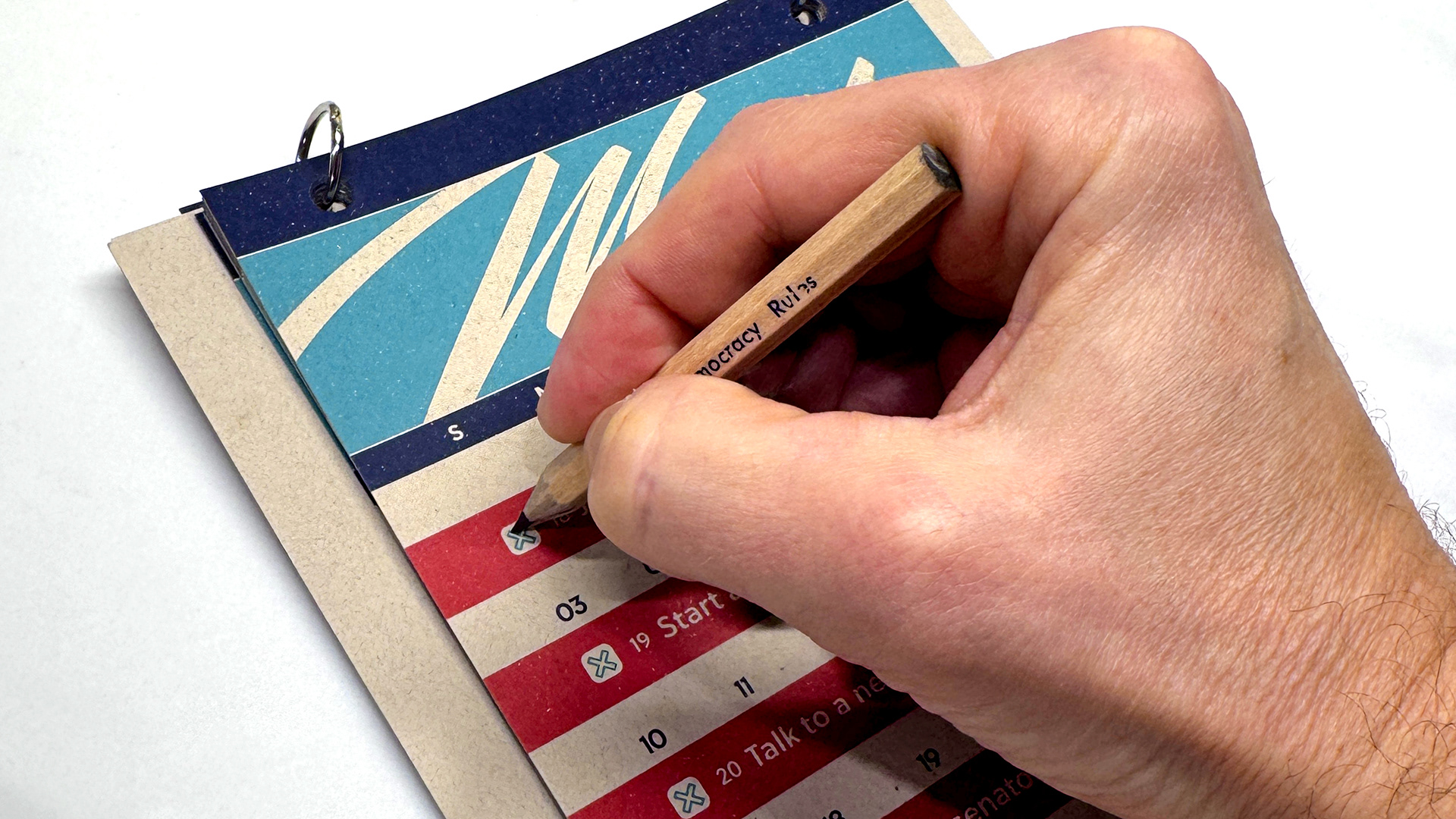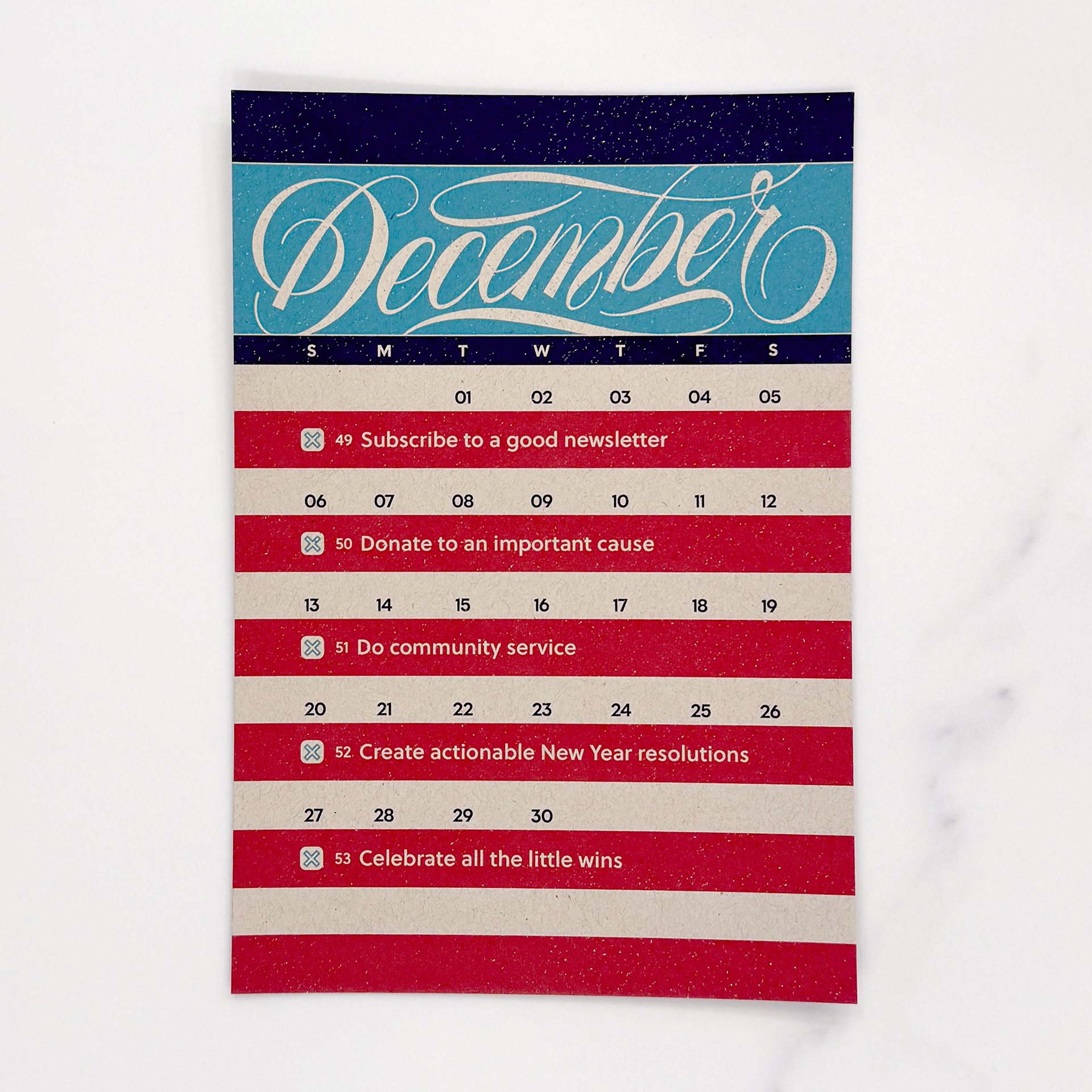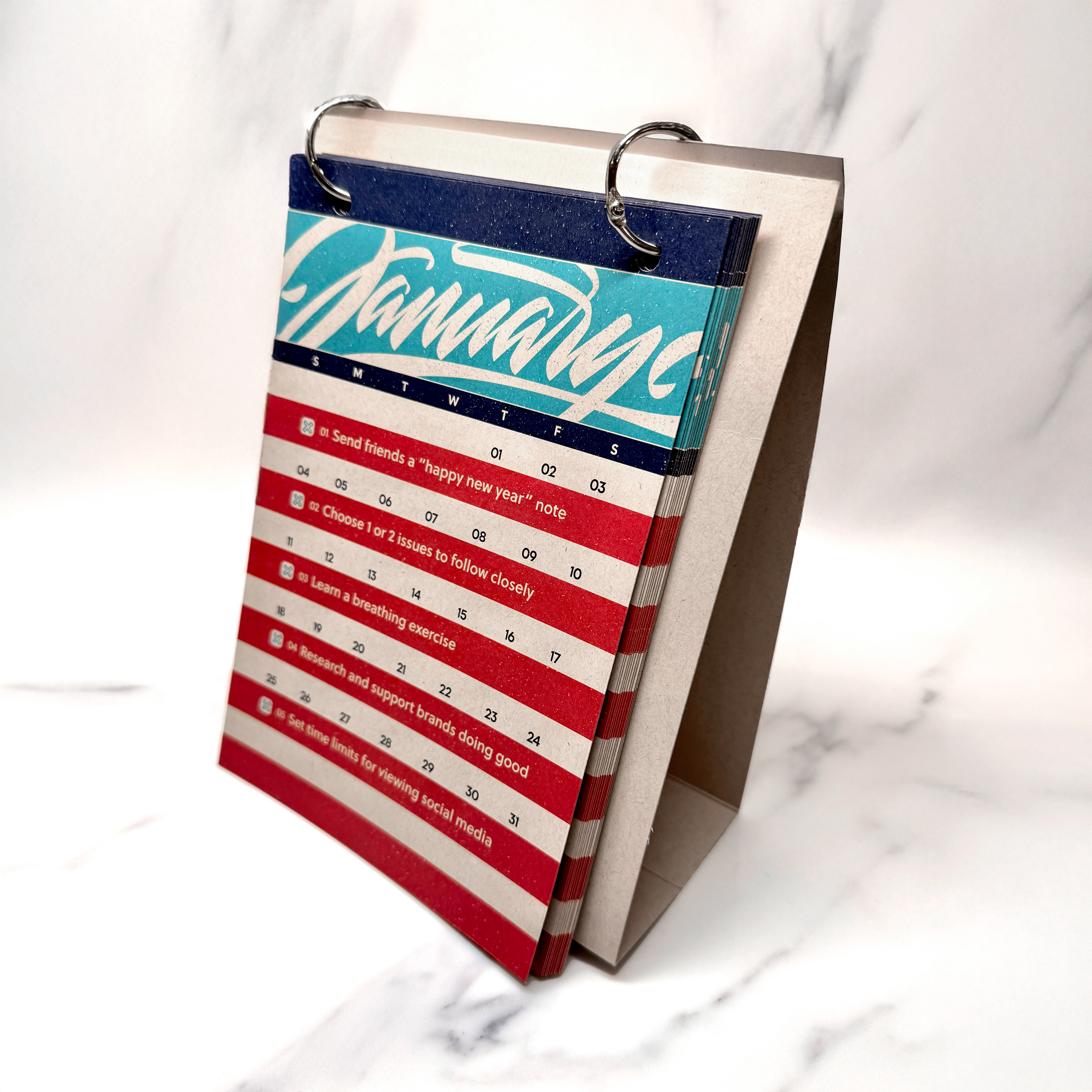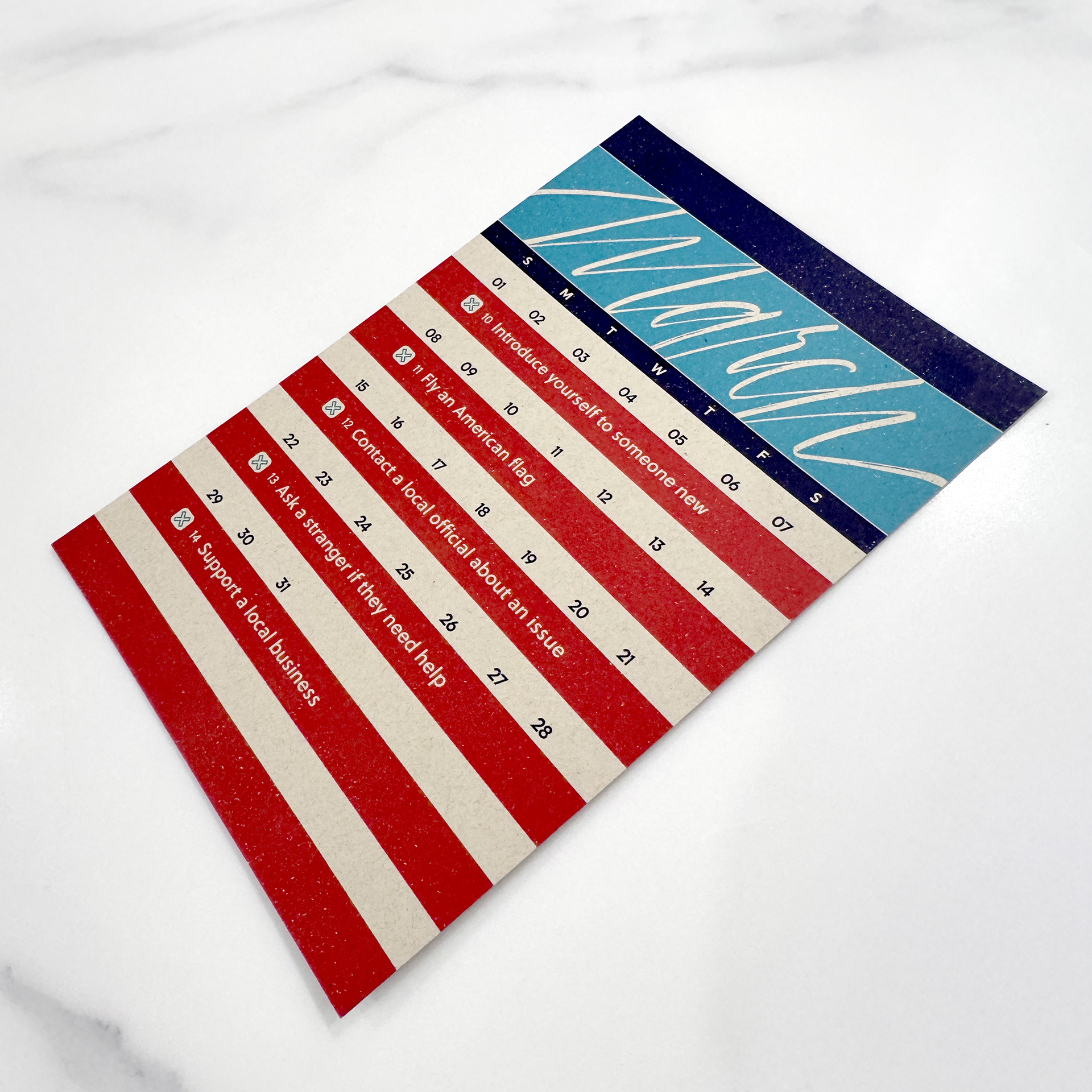
WHY THIS CALENDAR
Lately, it’s been hard not to feel powerless. Every day, the headlines bring more division, more noise, and more confusion about what can be done.
How can we speak up and take action in a tangible way?
As the United States approaches the 250th anniversary of the Declaration of Independence, I realized this milestone could be more than a moment to reflect — it could be a moment to act. So I set out to create something tangible, hopeful, and doable: a way to channel concern into action.
That’s how The People’s Calendar was born.
Each prompt features a clear, achievable objective — from contacting representatives, to supporting local businesses, to simple acts of care for yourself and your neighbors.
Together, these actions build a rhythm for engagement, one week at a time.
It’s not about doing everything. It’s about doing something — consistently.
Each prompt is very achievable and is balanced throughout the month to not be overwhelming.
The design itself honors the American flag — bold, simple, and deeply symbolic.
Each month features custom lettering inspired by its spirit and season.